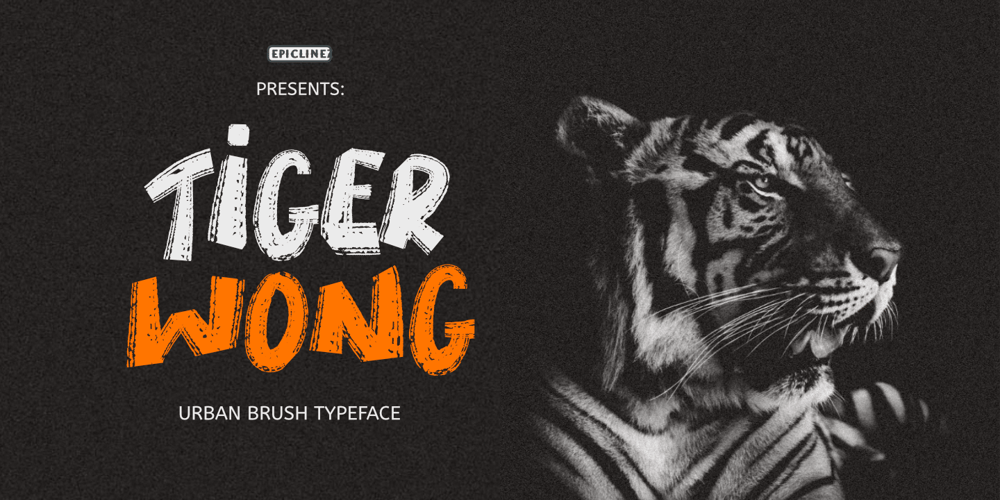
Tiger Wong
Tiger Wong font
Tiger Wong Font Family was designed by Aldy Sidik and published by Epiclinez. Tiger Wong contains 1 styles and family package options. Tiger Wong is a display brush font with a very strong character. Suitable for headlines, posters, and apparel.